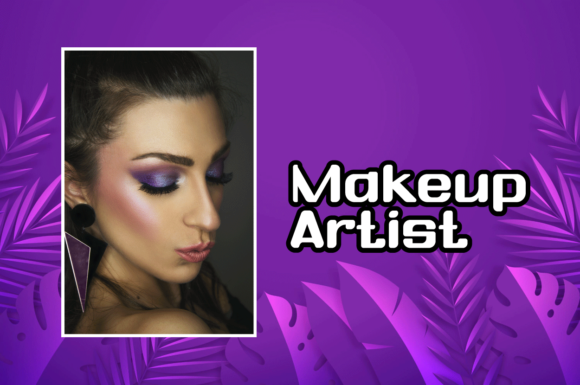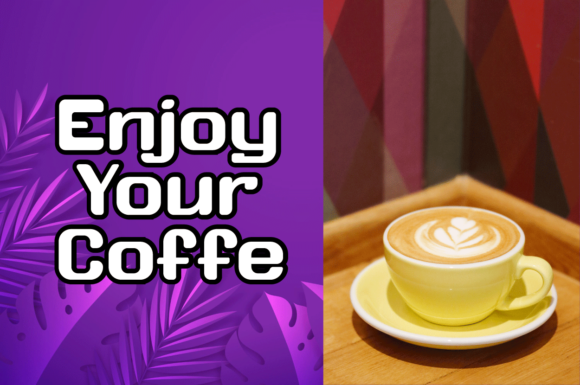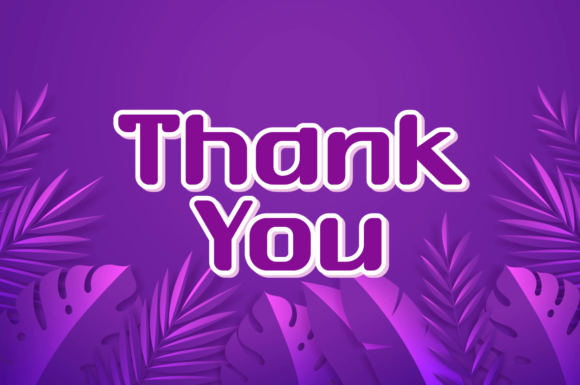
Introduction to Lingga Font
Remember that moment when you stumbled upon the perfect design element for your creative project? The one that instantly elevates your entire concept and leaves a lasting impression? For many designers, that ‘aha’ moment often begins with discovering the right font. And for those in the know, the Lingga Font is about to become your new go-to design resource.
Whether you’re crafting a trendy web design, creating a statement business card, or simply adding a touch of sophistication to your social media graphics, the Lingga Font is the perfect companion for your high-quality visual endeavors. Its sleek and modern aesthetic is sure to make a lasting impression, and with its transparent background, you can easily layer it with other design elements to create stunning visual effects.
Key Features of Lingga Font
- High-quality design resource suitable for various creative projects
- Comes with a transparent background, allowing for easy customization
- Unique characteristics: elegant, modern, and versatile, making it perfect for branding and typography projects
Honest Review: Lingga Font
I recently stumbled upon the Lingga Font, and I must say it’s been a game-changer for my creative projects. This font has quickly become one of my go-to design resources.
What works well is the font’s high-quality design and versatility. It’s perfect for creating engaging headlines, and the transparent background makes it easy to use on any background. The font’s clean and modern look adds a professional touch to any project.
- ✨ High-quality design and versatility
- ✨ Perfect for creating engaging headlines
- ✨ Easy to use on any background with transparent background
However, I do have a few limitations to note. The font may not be suitable for very small text sizes, and some users may find the font a bit too simple.
- ⚠️ May not be suitable for very small text sizes
- ⚠️ Font may be too simple for some users’ taste
Overall, I’m really impressed with the Lingga Font. It’s a fantastic addition to any designer’s toolkit, and the free download makes it an even more attractive option. If you’re looking for a high-quality font for your creative project, I highly recommend giving the Lingga Font a try.
Lingga Font
Lingga Font is a high-quality design resource that can elevate your creative project with its unique style and transparent background. Whether you’re a professional designer or a DIY enthusiast, this font is perfect for adding a touch of elegance to your work.
Tips for Getting the Most Out of Lingga Font
To get the most out of Lingga Font, use it sparingly to add emphasis and highlight important information. You can also experiment with different font sizes, colors, and combinations to create unique and eye-catching designs.
Lingga Font is perfect for a variety of creative projects, including:
- Infographics and presentations
- Blog posts and articles
Alternatives to Lingga Font
1. Noto Sans
Noto Sans is a high-quality sans-serif font that is ideal for creative projects requiring a clean and modern design. It’s a free download and suitable for a variety of design resources, including logos, posters, and digital interfaces. Noto Sans offers a transparent background, making it a versatile choice for designers.
Compared to Lingga Font, Noto Sans has a more modern and sleek appearance, making it a better choice for contemporary design projects.
Open Sans is another popular sans-serif font that is widely used in design resources. It’s highly legible and versatile, making it suitable for various creative projects, including digital interfaces, logos, and printed materials. Open Sans is available for free download and offers a transparent background.
Open Sans is similar to Lingga Font in terms of its clean and modern appearance, but it has a more neutral tone, making it a better choice for projects that require a subtle design aesthetic.